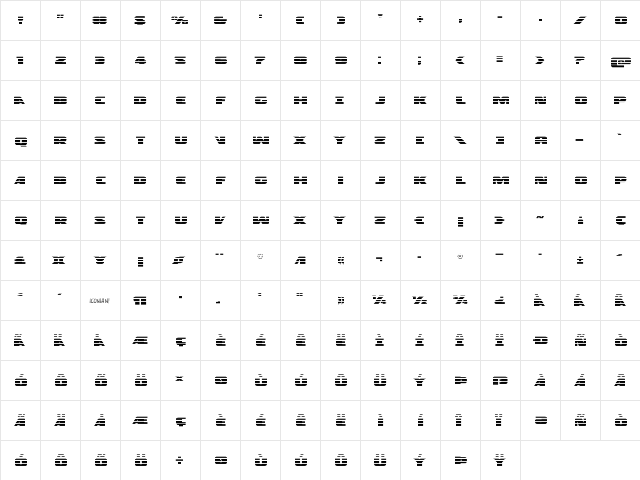
Police Cruiser Gradient Regular
Design Context for Police Cruiser Gradient Typeface
Police Cruiser Gradient is a composed and adaptable typeface that performs quietly and consistently across a wide range of design contexts.